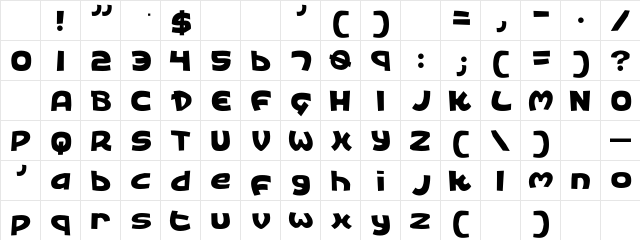
Complete King's Ransom Regular glyph index. Displaying only characters natively supported by King's Ransom Regular font.
King's Ransom is a composed and adaptable typeface that performs quietly and consistently across a wide range of design contexts.